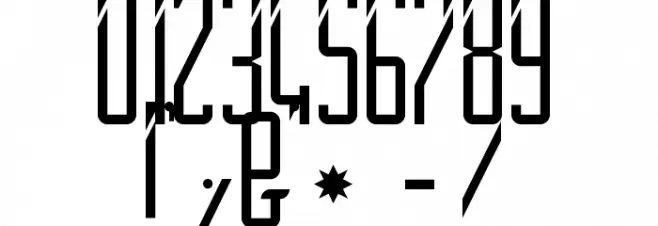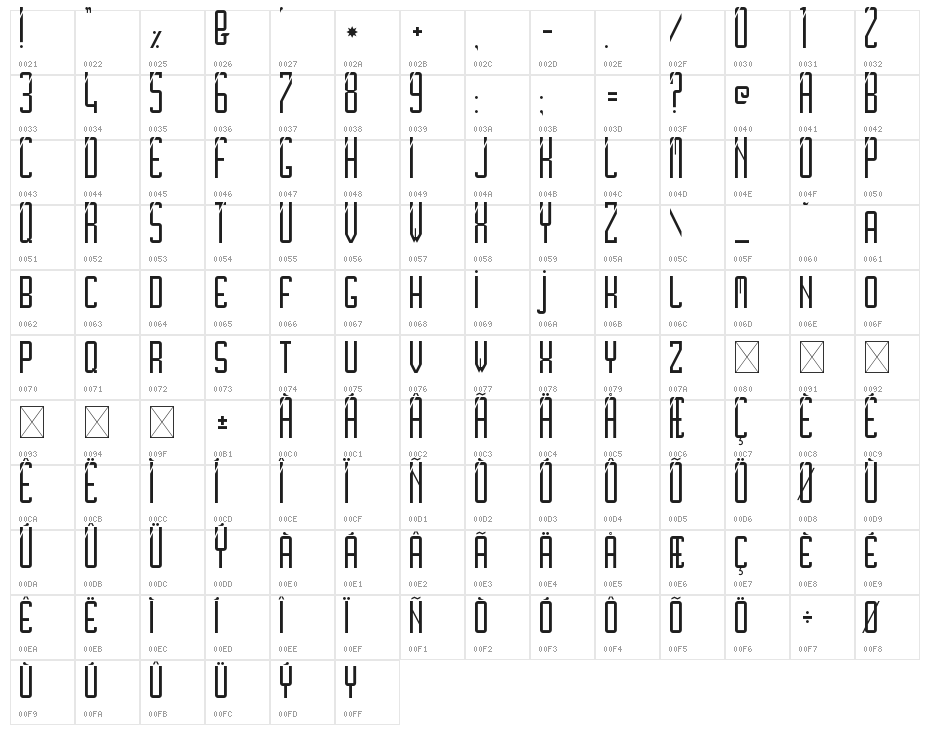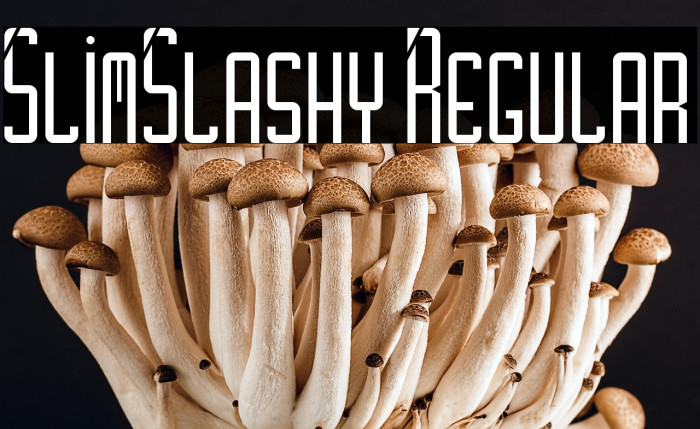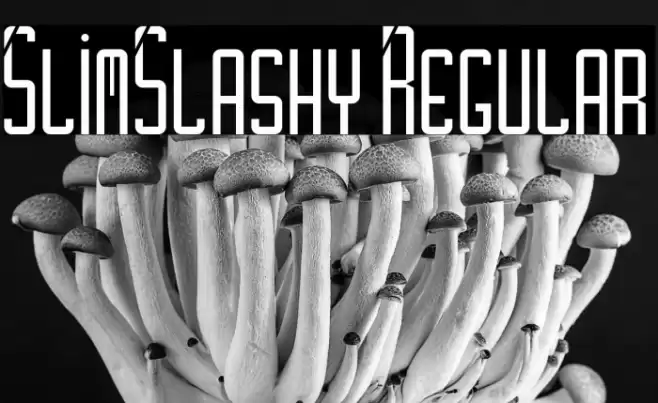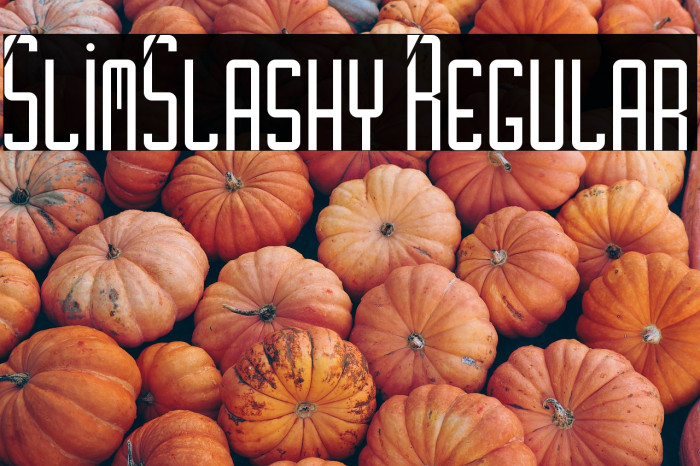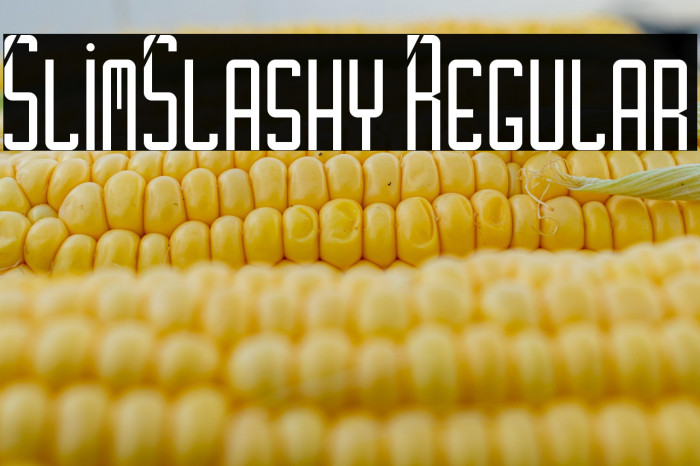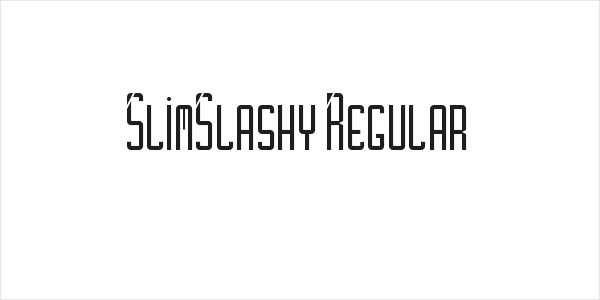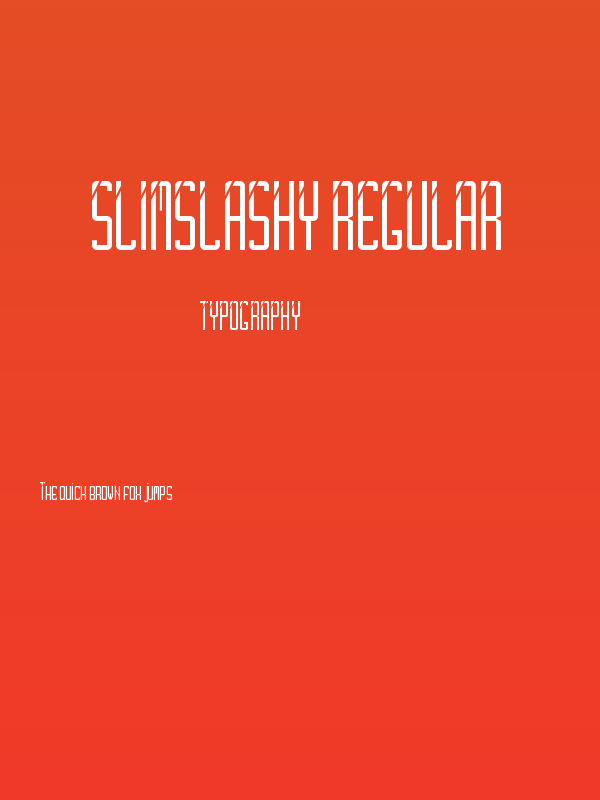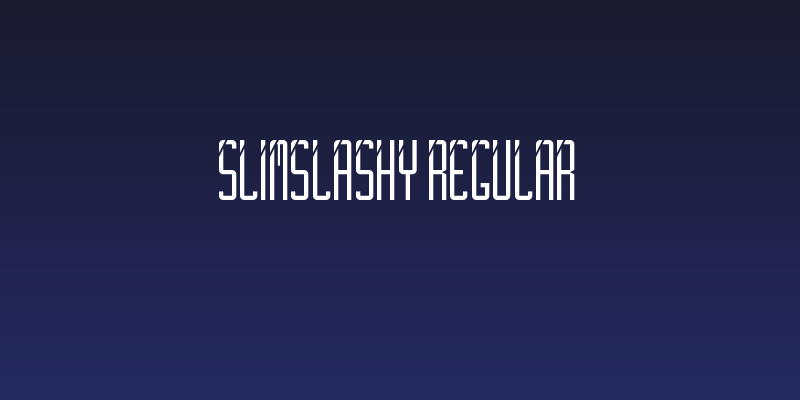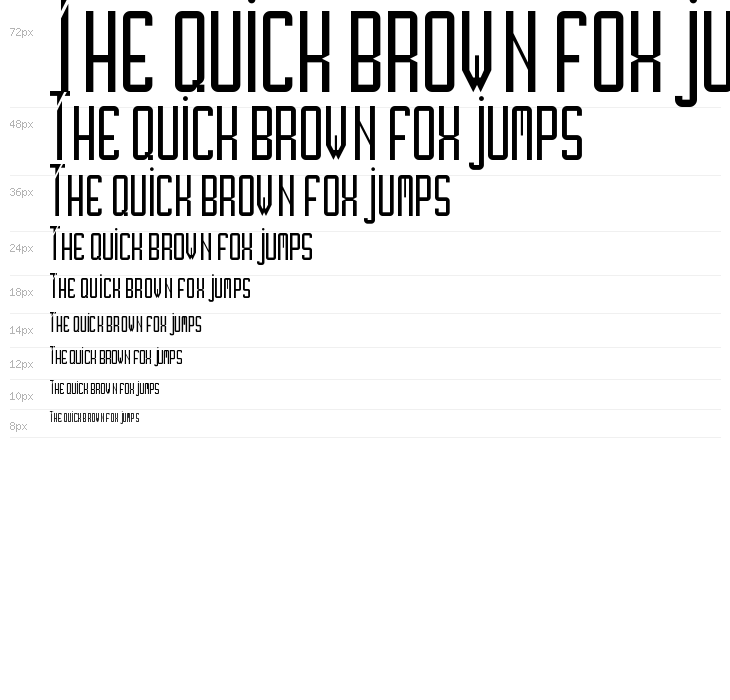
SlimSlashy Regular Font
SlimSlashy Regular Description
This font features a unique, modern design with elongated, narrow characters that give it a sleek and futuristic appearance. The strokes are consistent in thickness, creating a uniform look across all characters. The angular cuts and sharp edges add a dynamic and edgy feel, making it stand out in any design. The uppercase and lowercase letters maintain a consistent style, while the numerals and special characters are designed to complement the overall aesthetic. This font is ideal for projects that require a contemporary and stylish touch.